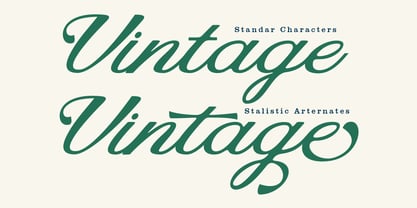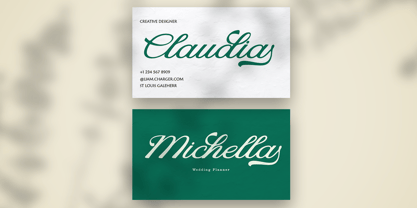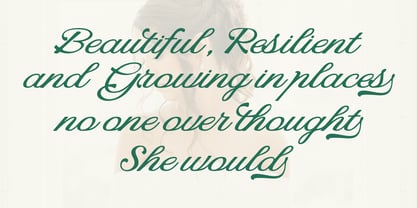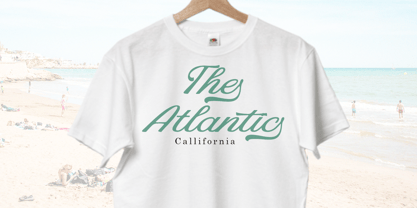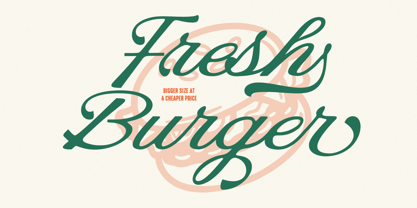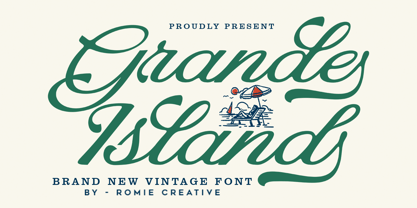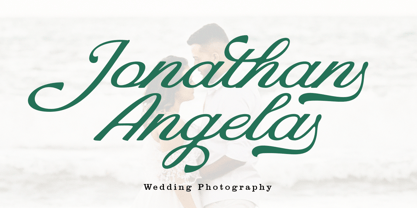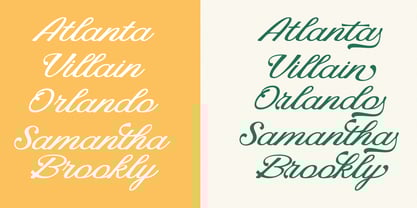
Grande Island
by Romie Creative
The Grande Island Font Family was designed by Romi Rahmadi and published by Romie Creative. Grande Island contains 1 styles.
Introducing Grande Island New Vintage Brand, a thoughtfully designed and characterful script typeface. You can use it for logos, badges, emblems, packaging, titles, posters, t-shirts/apparel, greeting cards, and wedding invitations.
The flowing characters are ideal for creating engaging messages. Combine Grande Island New Vintage Brand with a variety of alternate characters to suit your project.